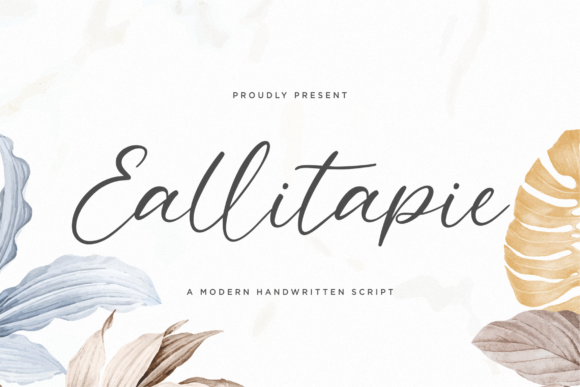
Unleash your creativity and forge a distinctive online presence with Eallitapie, the enchanting script font that exudes elegance and charm. Specifically designed to elevate your Instagram bio, Eallitapie captivates your audience with its alluring strokes and mesmerizing curves. Step into a world of captivating typography and let your words dance with grace and sophistication.
Eallitapie's meticulously crafted characters possess an inherent beauty that breathes life into your designs. Its delicate hairlines and sweeping flourishes evoke a sense of timeless romance, while its flowing ligatures add an air of seamless harmony. Whether you're crafting heartfelt wedding invitations, expressing gratitude with personalized thank-you cards, or creating captivating logos that leave a lasting impression, Eallitapie effortlessly elevates your creations.
With Eallitapie as your creative companion, you'll discover a boundless realm of possibilities. Let your imagination run wild as you craft captivating greeting cards that convey heartfelt messages with a touch of elegance. Transform your social media presence into a captivating tapestry of visual delight, where your words resonate with an enchanting allure. Unleash your inner artist and design logos that embody sophistication and uniqueness, leaving an indelible mark on your audience's minds.
Eallitapie's versatility extends far beyond the confines of traditional design realms. Its ability to seamlessly blend with a myriad of styles and themes makes it a font of boundless creative potential. Whether you're seeking a touch of whimsical charm or an aura of timeless sophistication, Eallitapie seamlessly adapts to your vision. Embrace its versatility and let your creativity flow effortlessly, knowing that Eallitapie will effortlessly elevate your designs to new heights of brilliance.
Join the ranks of savvy designers and tastemakers who have discovered the transformative power of Eallitapie. Let your imagination soar as you harness its enchanting allure to create captivating designs that resonate with your audience. Eallitapie is more than just a font; it's a gateway to a world of creative liberation, where your ideas take center stage and leave an unforgettable impression. Embrace the magic of Eallitapie and embark on a journey of visual storytelling that captivates and inspires.